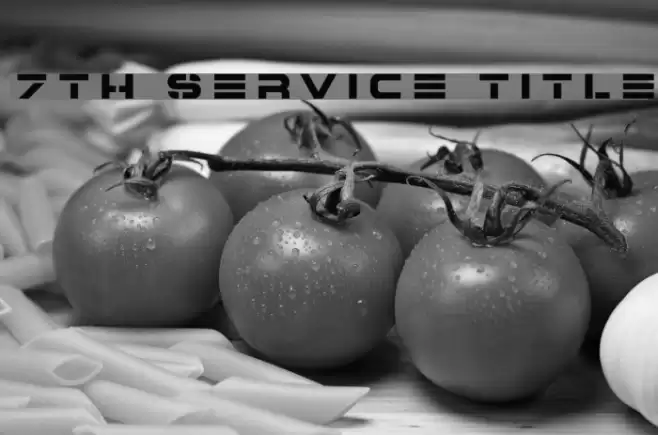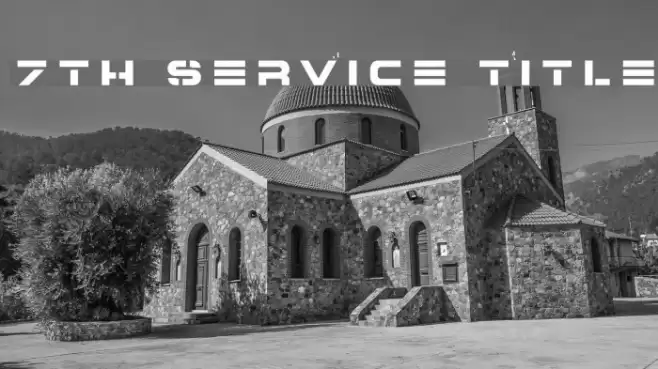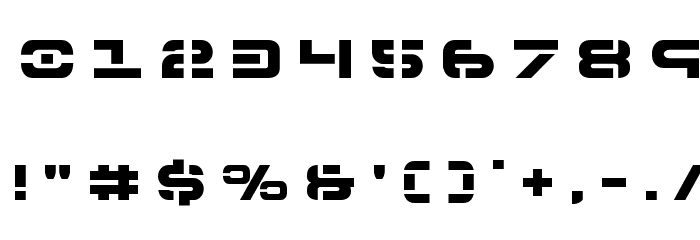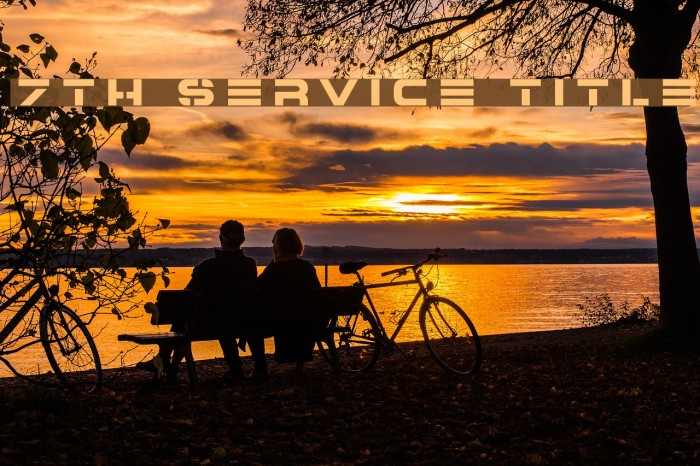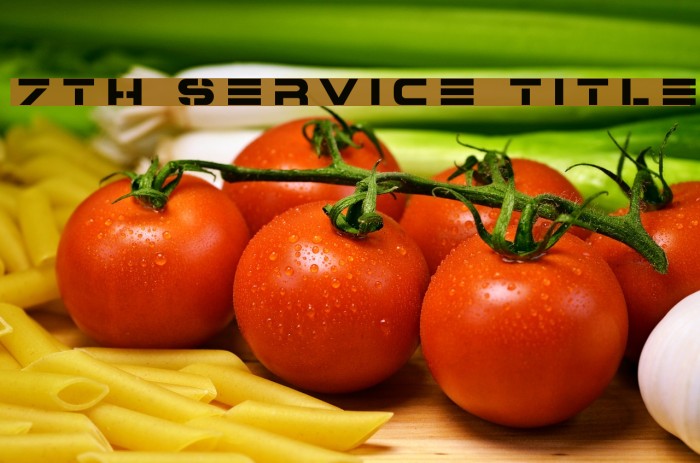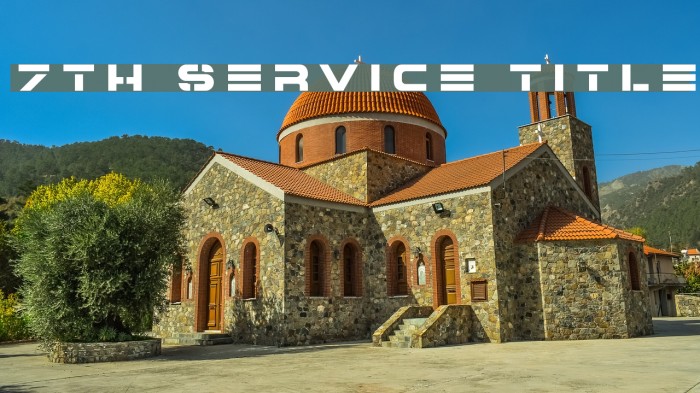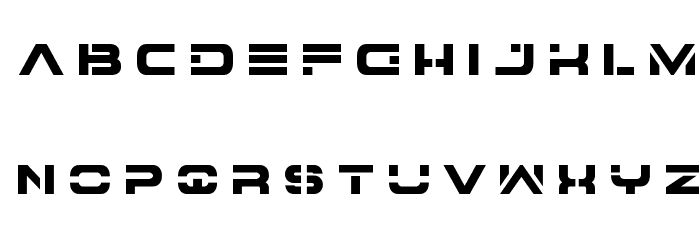
7th Service Title Font
7th Service Title Description
This font features a bold, futuristic design with geometric elements and a stencil-like appearance. The characters are constructed with solid, blocky shapes and strategic cutouts, giving it a modern, industrial feel. The uppercase letters are particularly striking, with unique modifications that create a sense of movement and dynamism. The numbers and special characters maintain this cohesive style, ensuring versatility across various applications. The font's distinctiveness makes it suitable for projects that require a strong, impactful visual presence.
A bold, futuristic font with geometric and stencil-like elements from Uncategorized fonts.
- Proposed Projects: Ideal for technology branding, sci-fi movie posters, video game titles, and industrial design projects.
- Overall Style: Futuristic